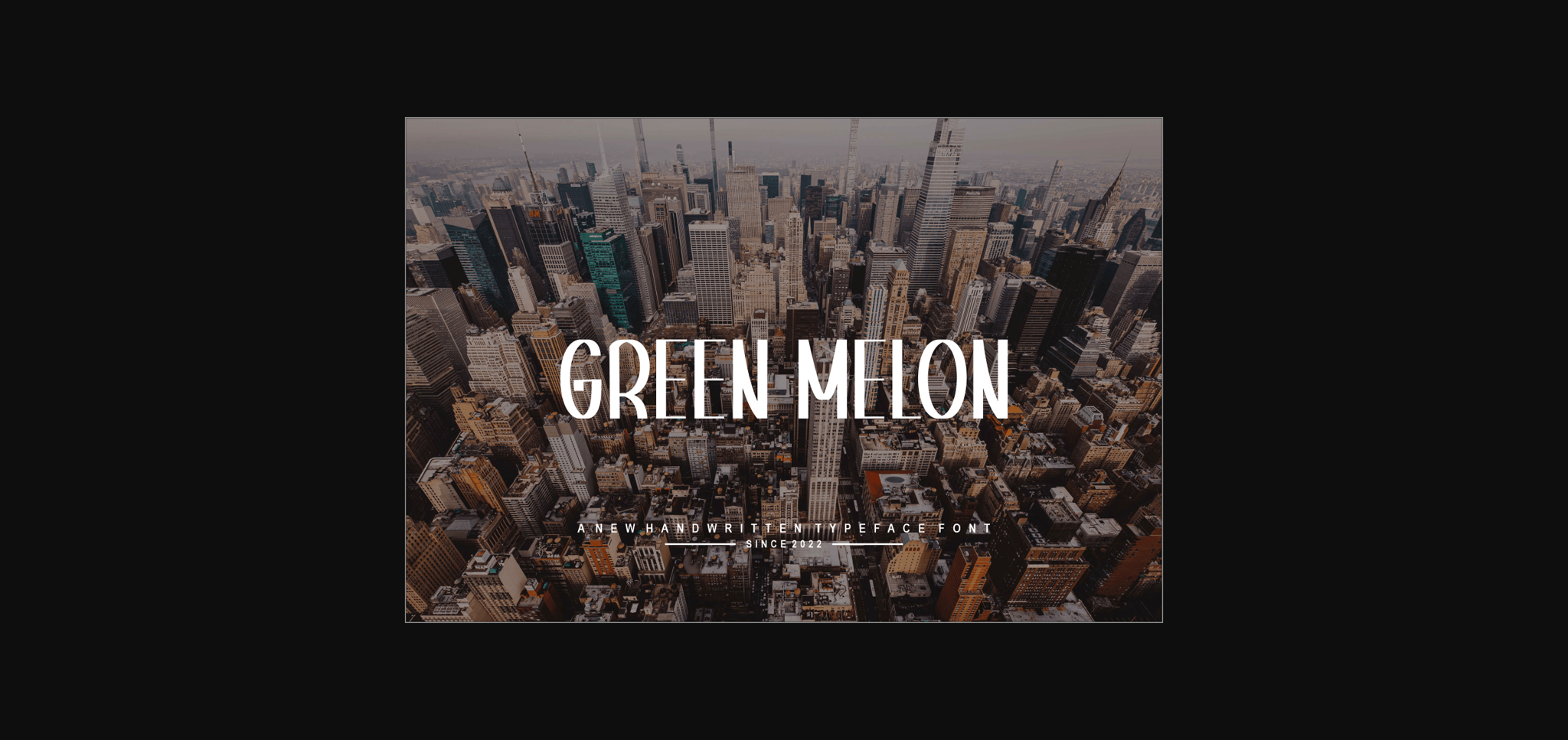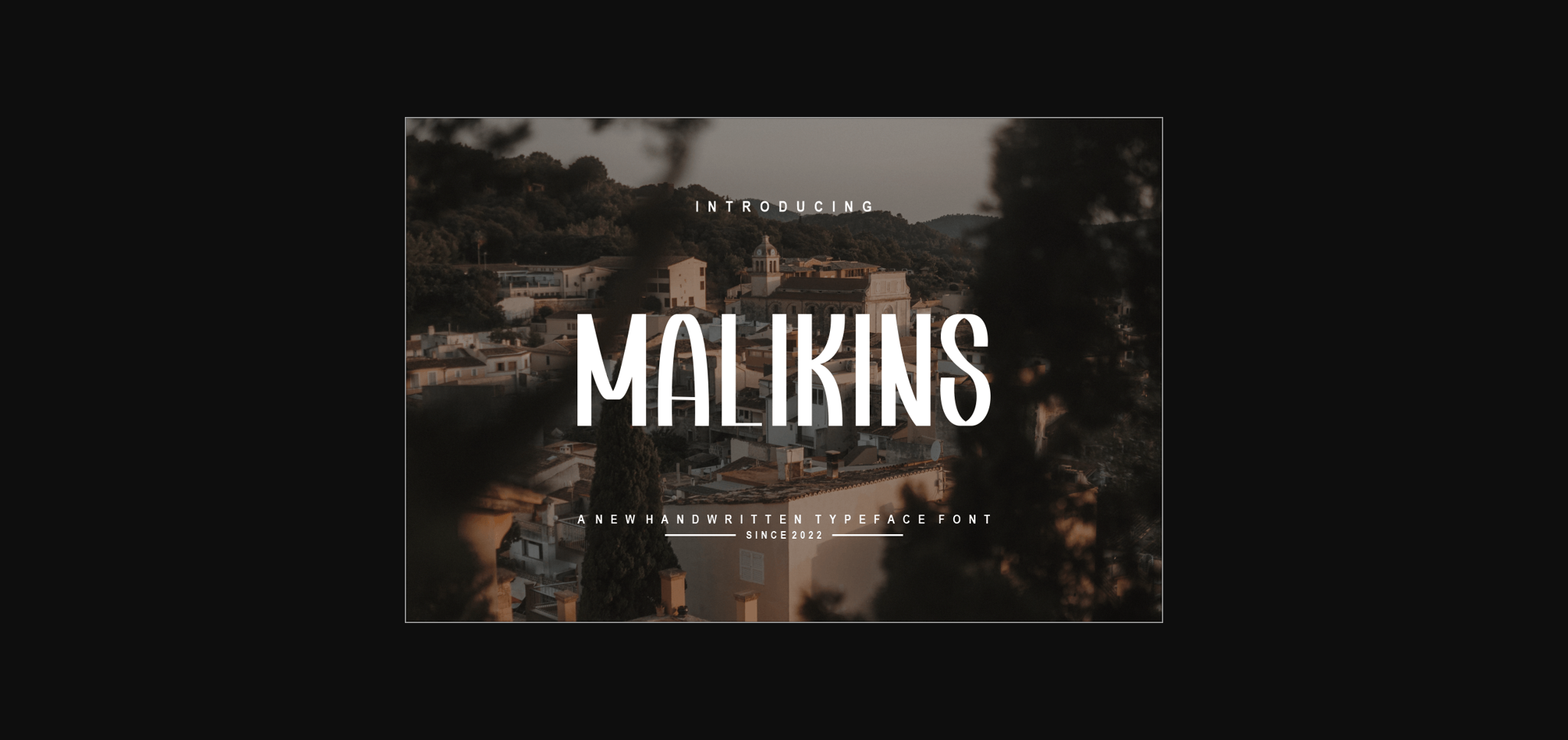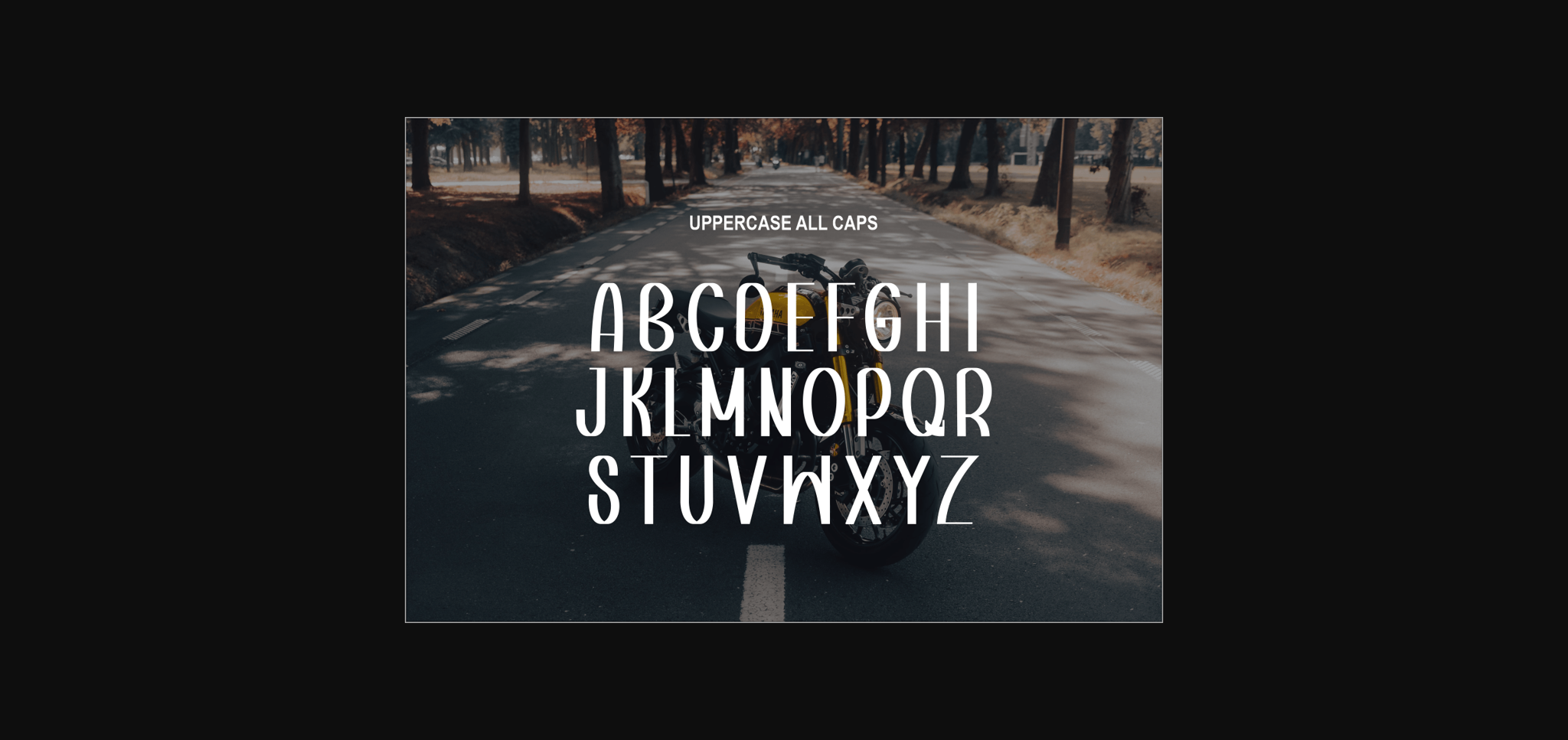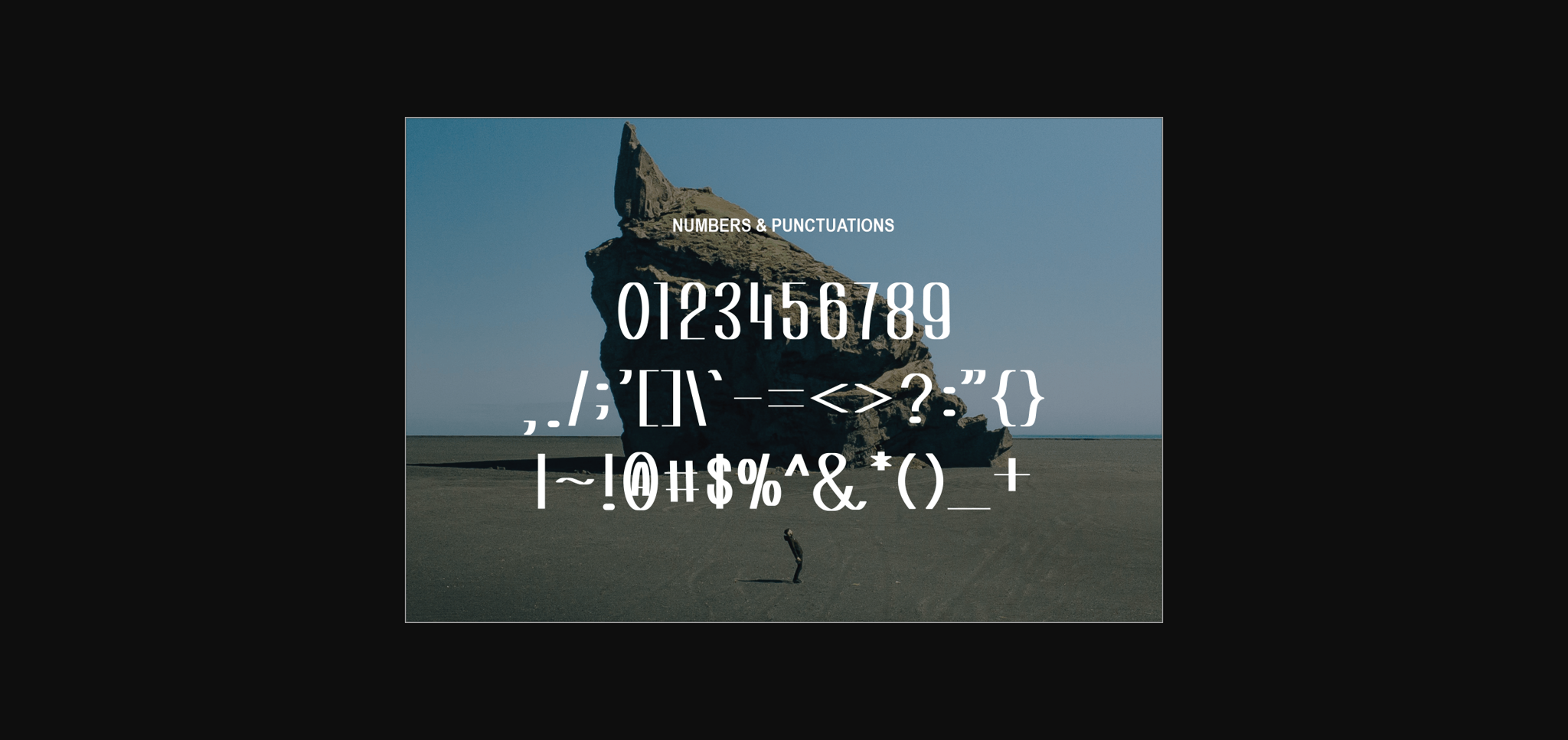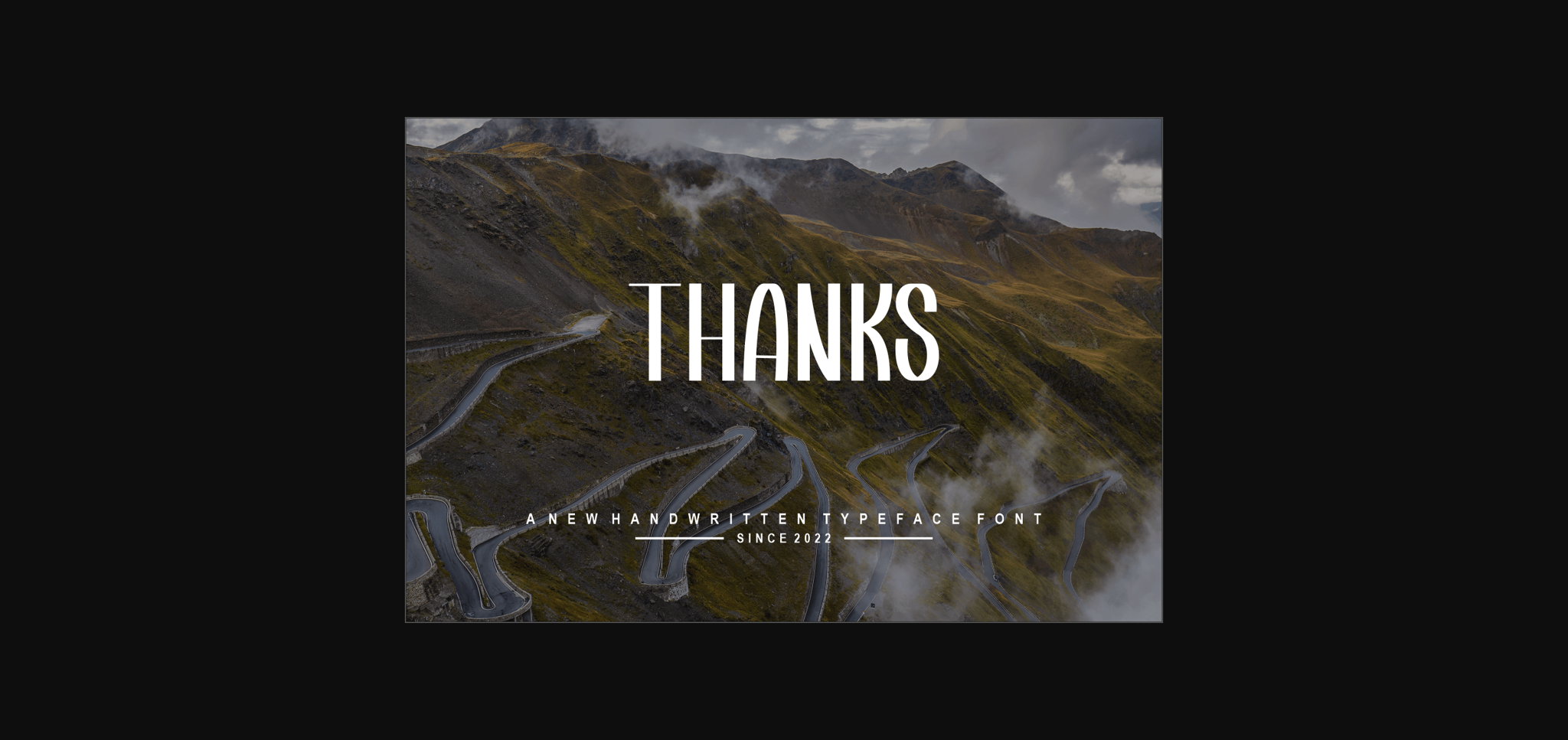
About Malikins Font
Malikins is a stylish and elegant sans serif typeface. It retains a classy calligraphic influence while feeling contemporary and fresh. Fall in love with it and take your project to the highest level!